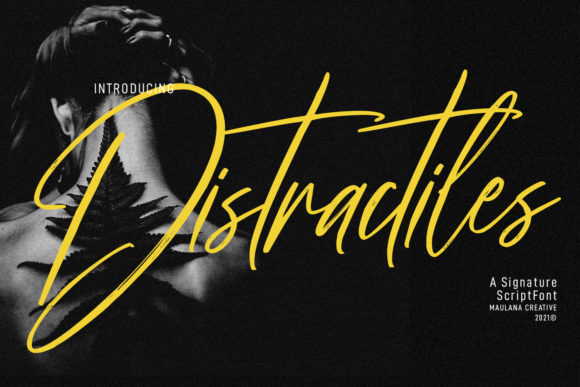
Prepare to embark on a typographic odyssey with Distractiles, a script font family that's bound to leave you spellbound. Created by the visionary Maulana Creative, Distractiles embodies the essence of elegance and fluidity, making it the perfect choice for designers seeking to infuse their projects with a touch of sophistication.
With its graceful curves and enchanting ligatures, Distractiles effortlessly captures the beauty of handwritten text, adding a personal touch to your designs. Its distinct and timeless style transcends fleeting trends, ensuring that your creations remain captivating for years to come.
Unleash your creativity and let Distractiles work its magic on your projects. Whether you're crafting eye-catching logos, designing elegant invitations, or creating stunning social media posts, Distractiles will elevate your designs to new heights.
Embrace the allure of Distractiles and immerse yourself in a world of typographic wonder. Its versatility knows no bounds, making it the perfect font for a wide range of applications, including branding, packaging, posters, and web design.